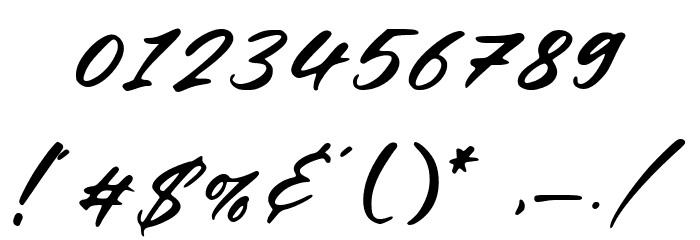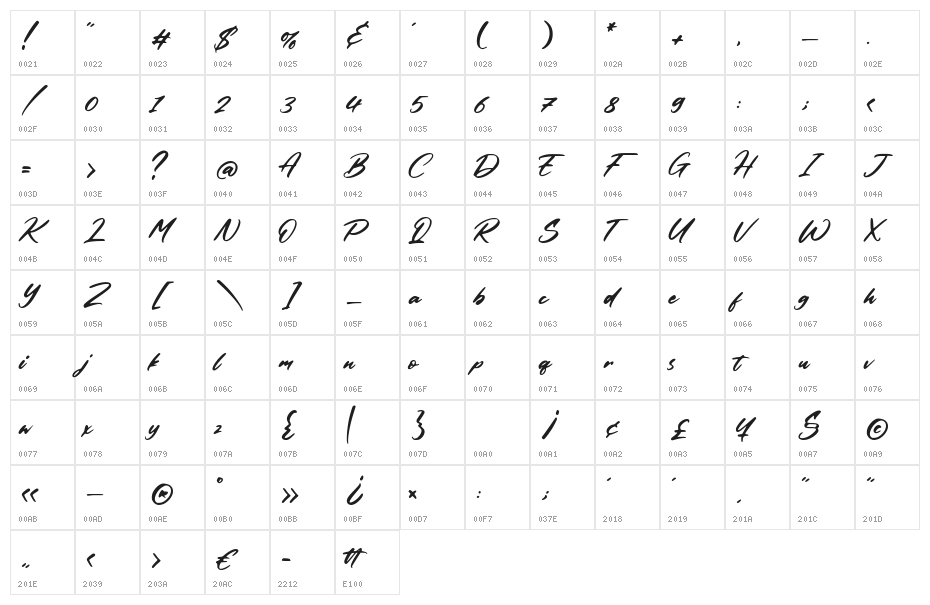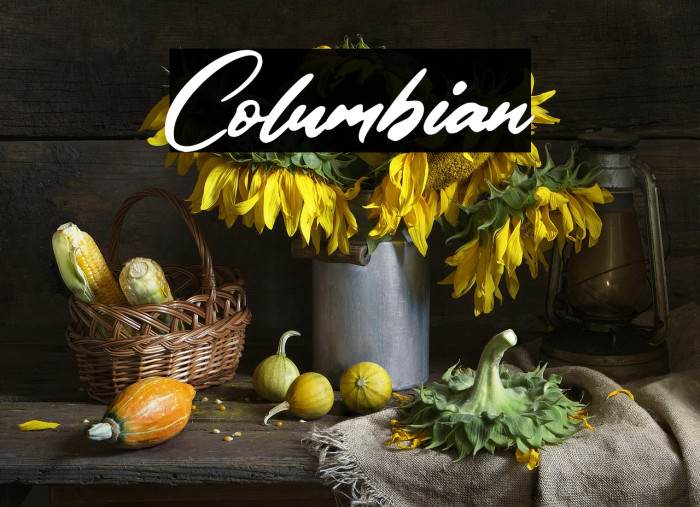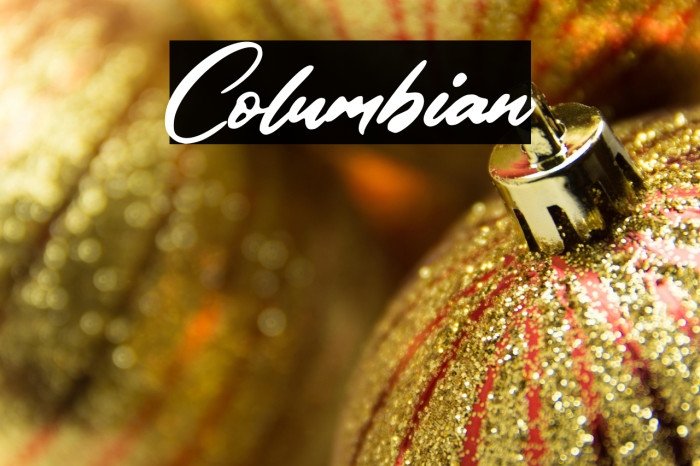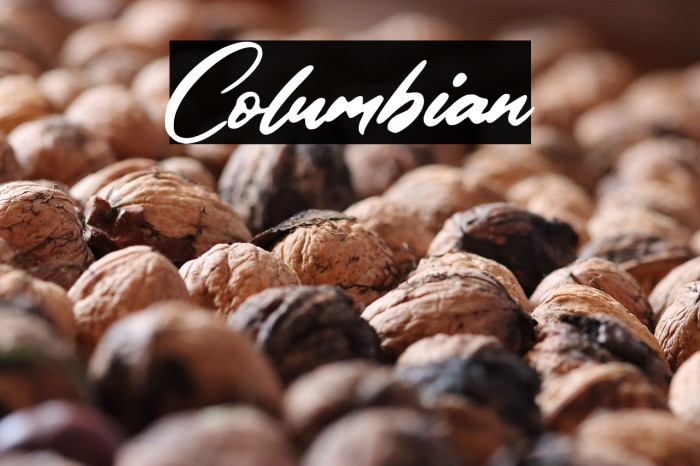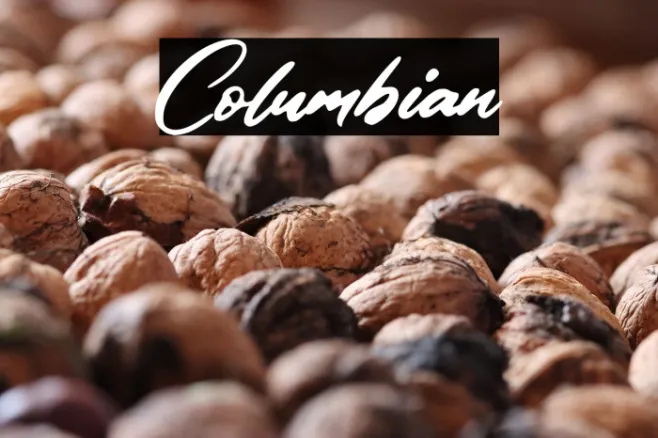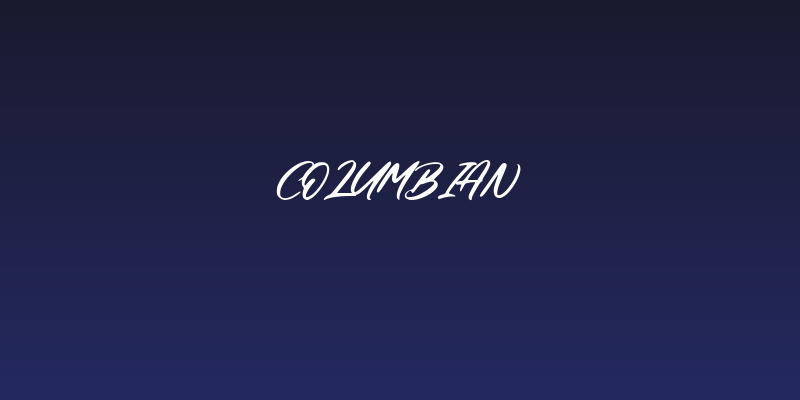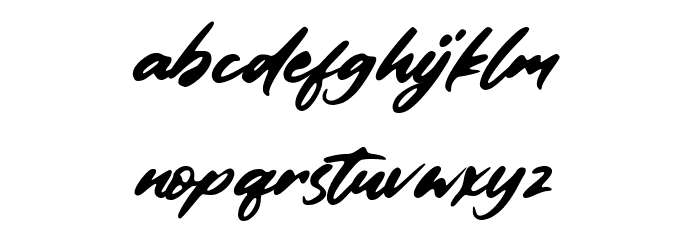
Columbian Font
Columbian Description
This font exudes a dynamic and energetic feel with its bold, flowing script style. The characters are connected in a cursive manner, giving it a handwritten appearance that is both elegant and casual. The uppercase letters are slightly more formal, with a pronounced slant and smooth curves, while the lowercase letters maintain a consistent flow, enhancing readability. The numbers and special characters are designed to match the overall aesthetic, ensuring a cohesive look across all text. This font is ideal for projects that require a personal touch, such as invitations, greeting cards, or branding materials.
| Overall Style | Elegant, Casual |
| Proposed Projects | Ideal for invitations, greeting cards, branding, and any project needing a personal touch. |